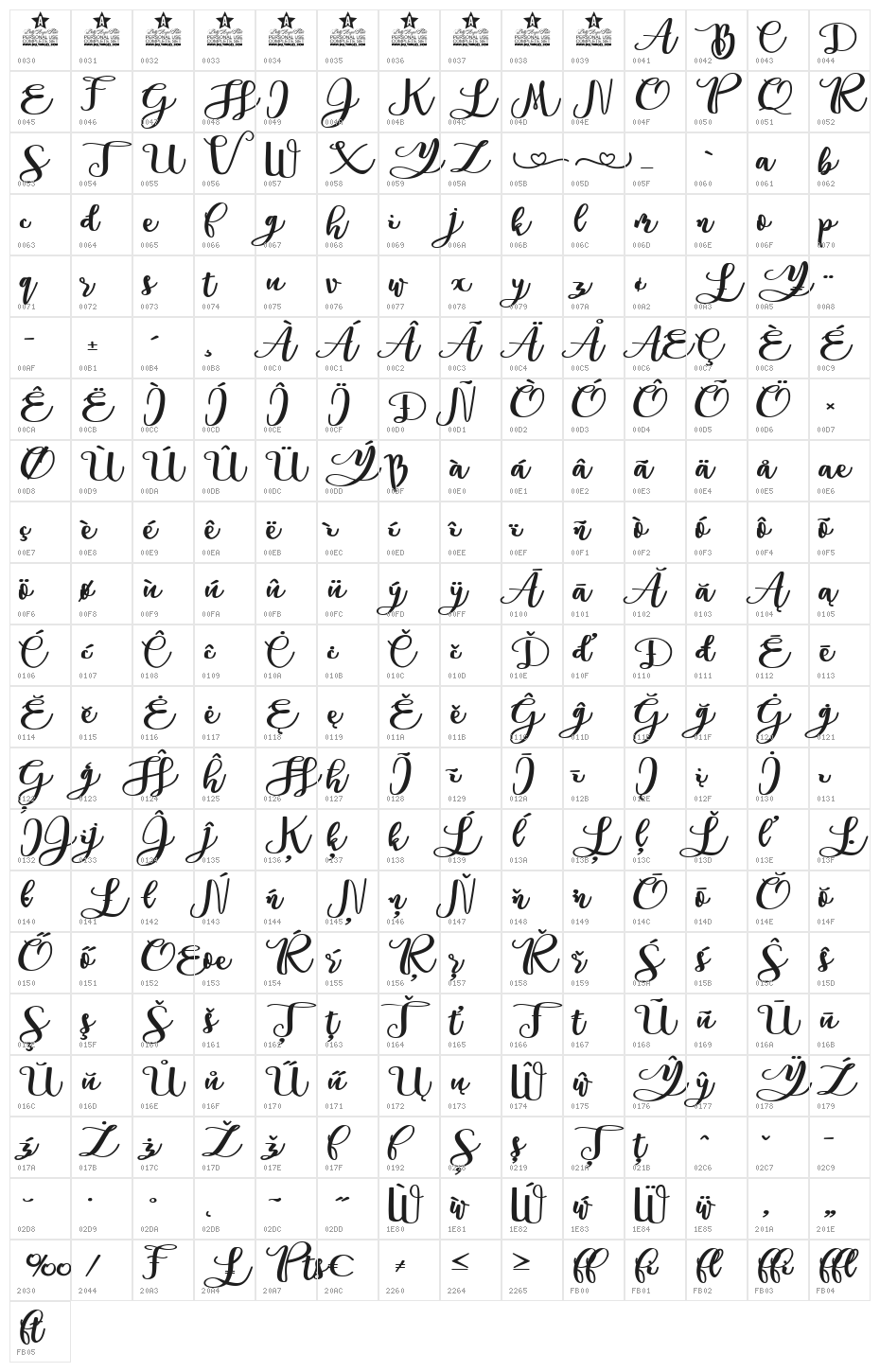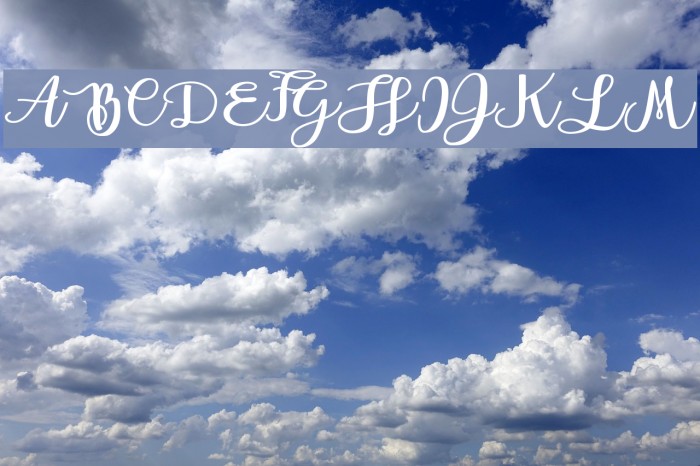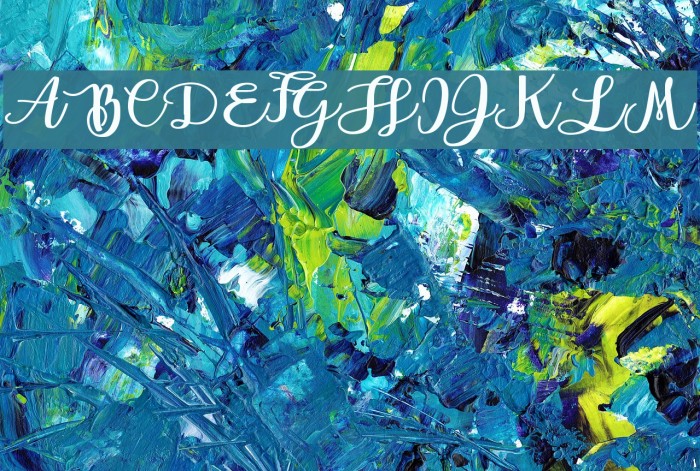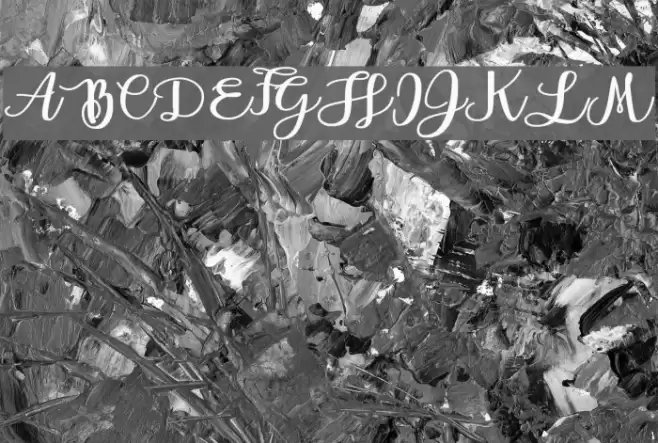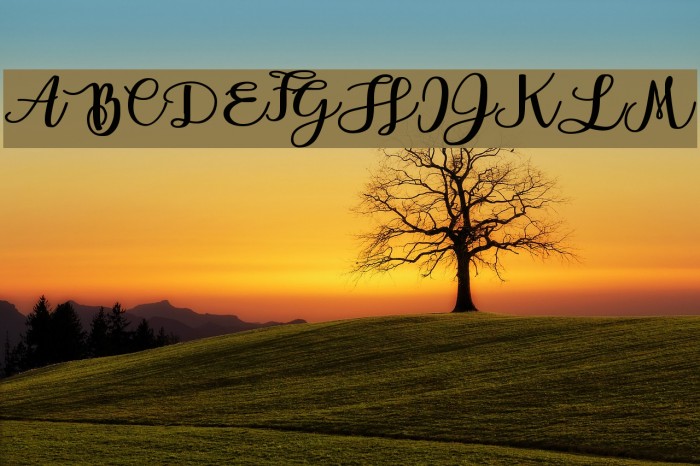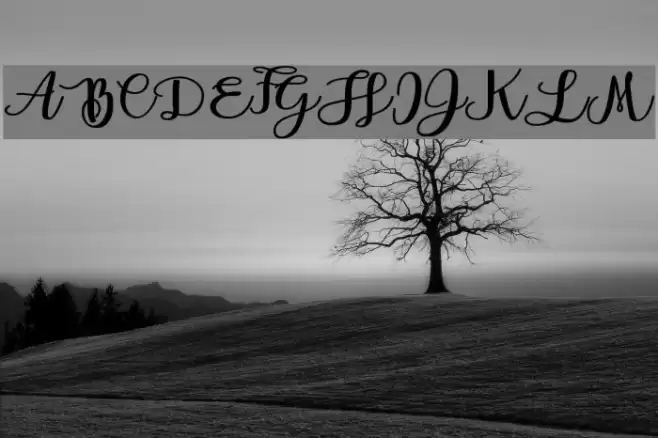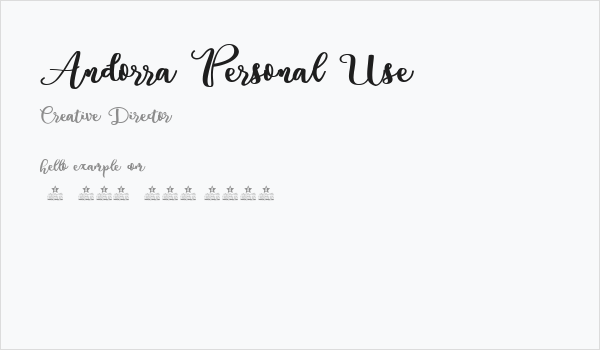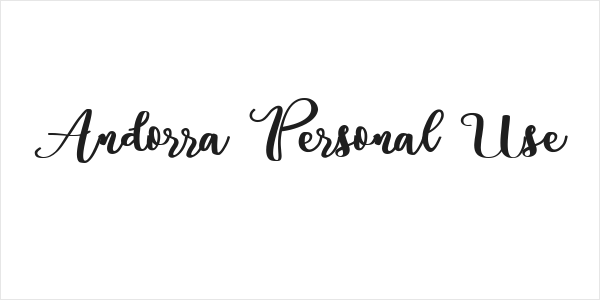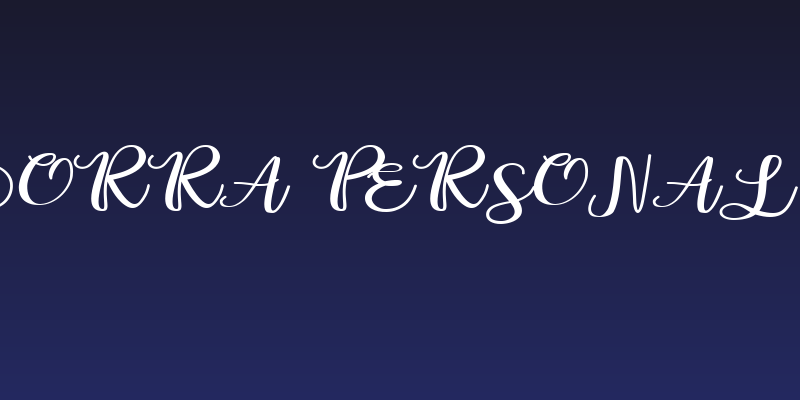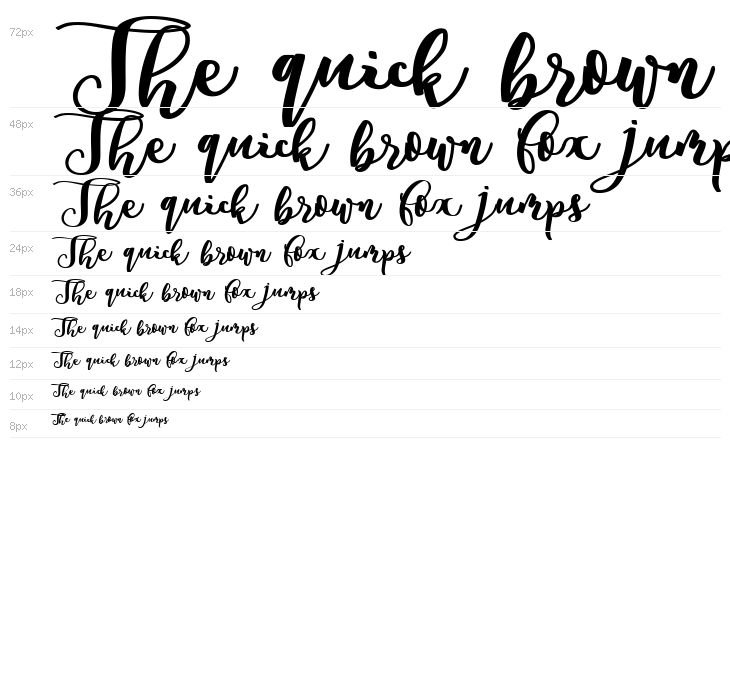
Andorra Personal Use Font
Andorra Personal Use Description
This font features a flowing, cursive style with elegant loops and swashes, giving it a sophisticated and artistic appearance. The uppercase letters are distinct with their elaborate flourishes, while the lowercase letters maintain a consistent, smooth flow. The font has a hand-drawn quality, adding a personal touch to any design. The characters are well-balanced, with a slight slant that enhances its graceful look. The numbers and special characters are designed to match the overall aesthetic, ensuring a cohesive appearance across all text elements.